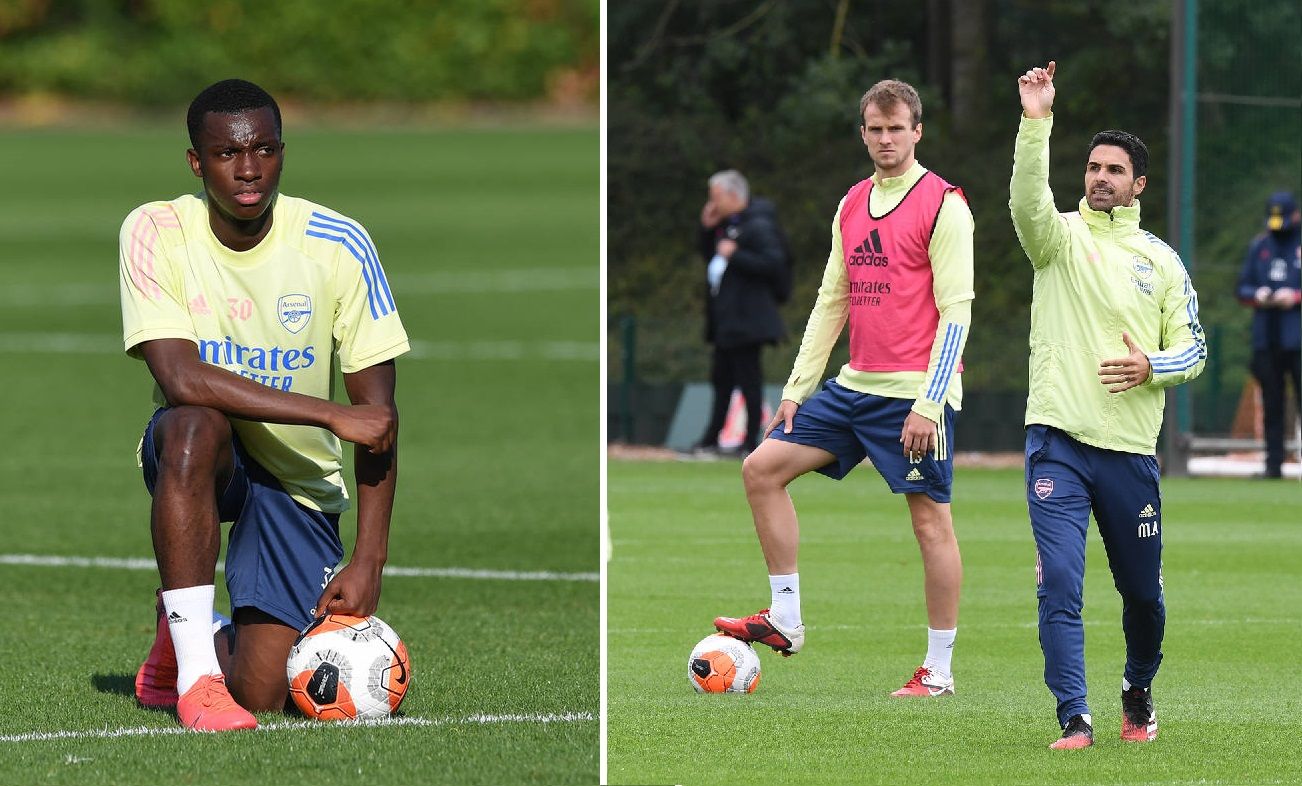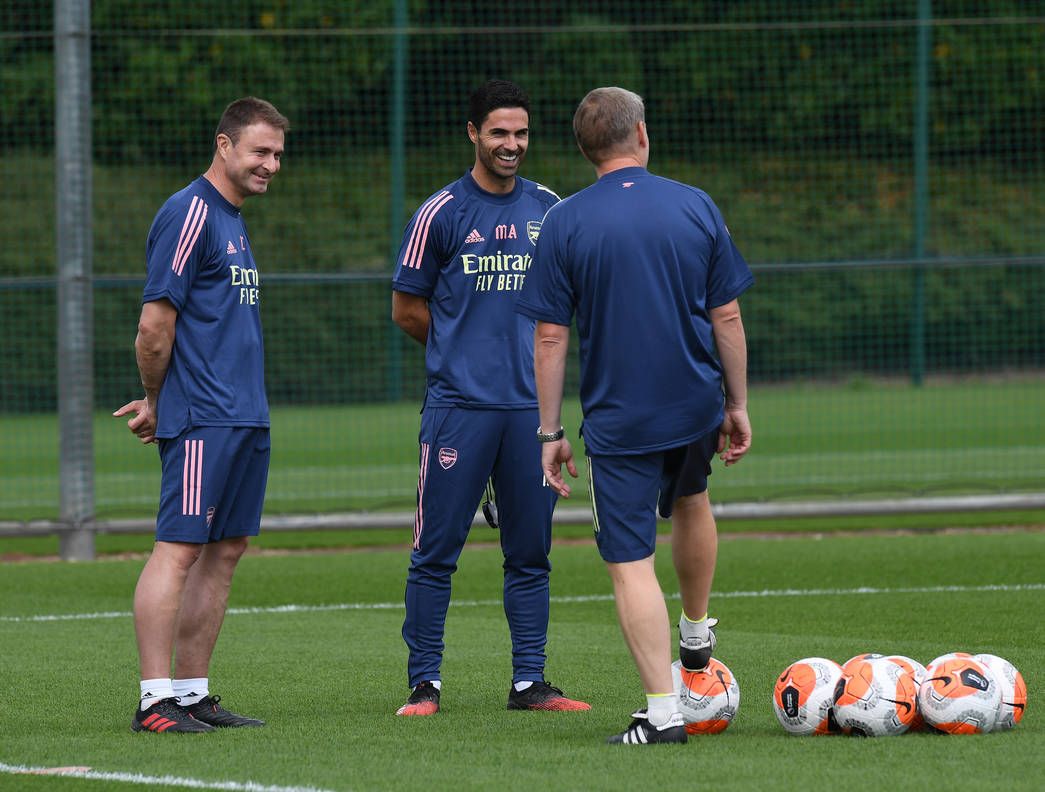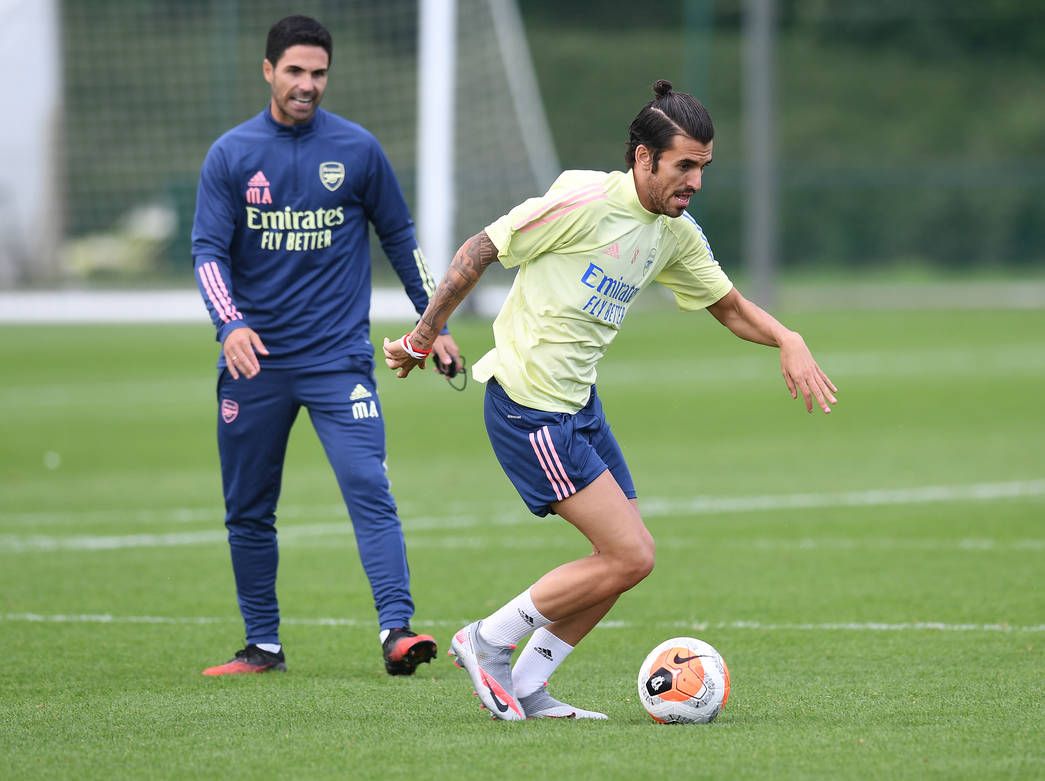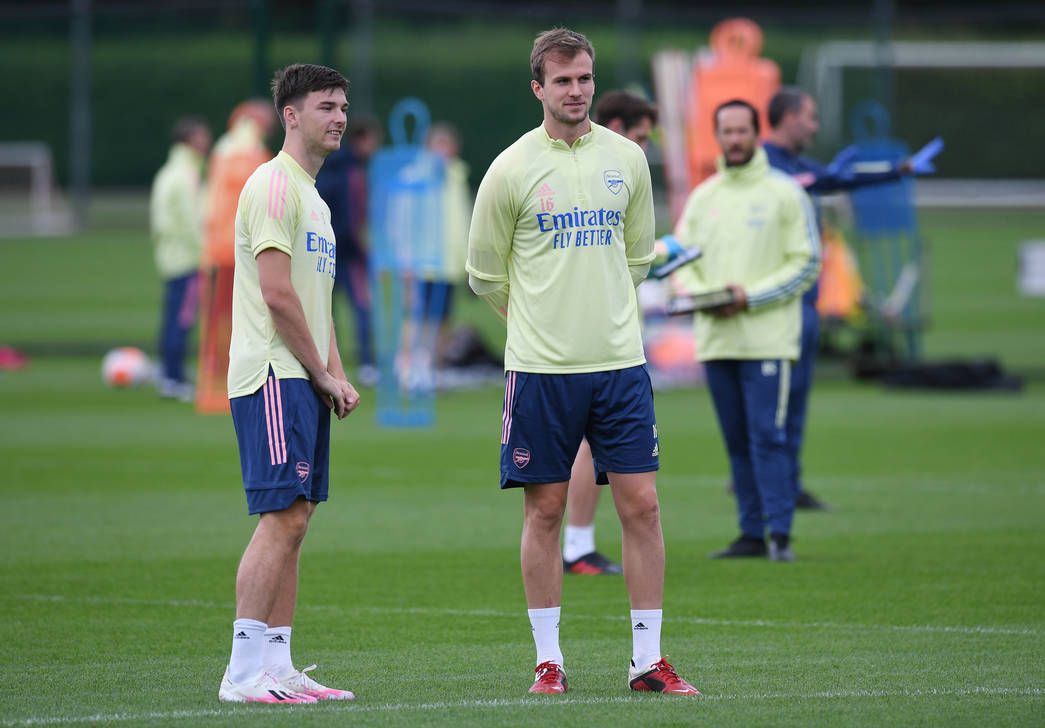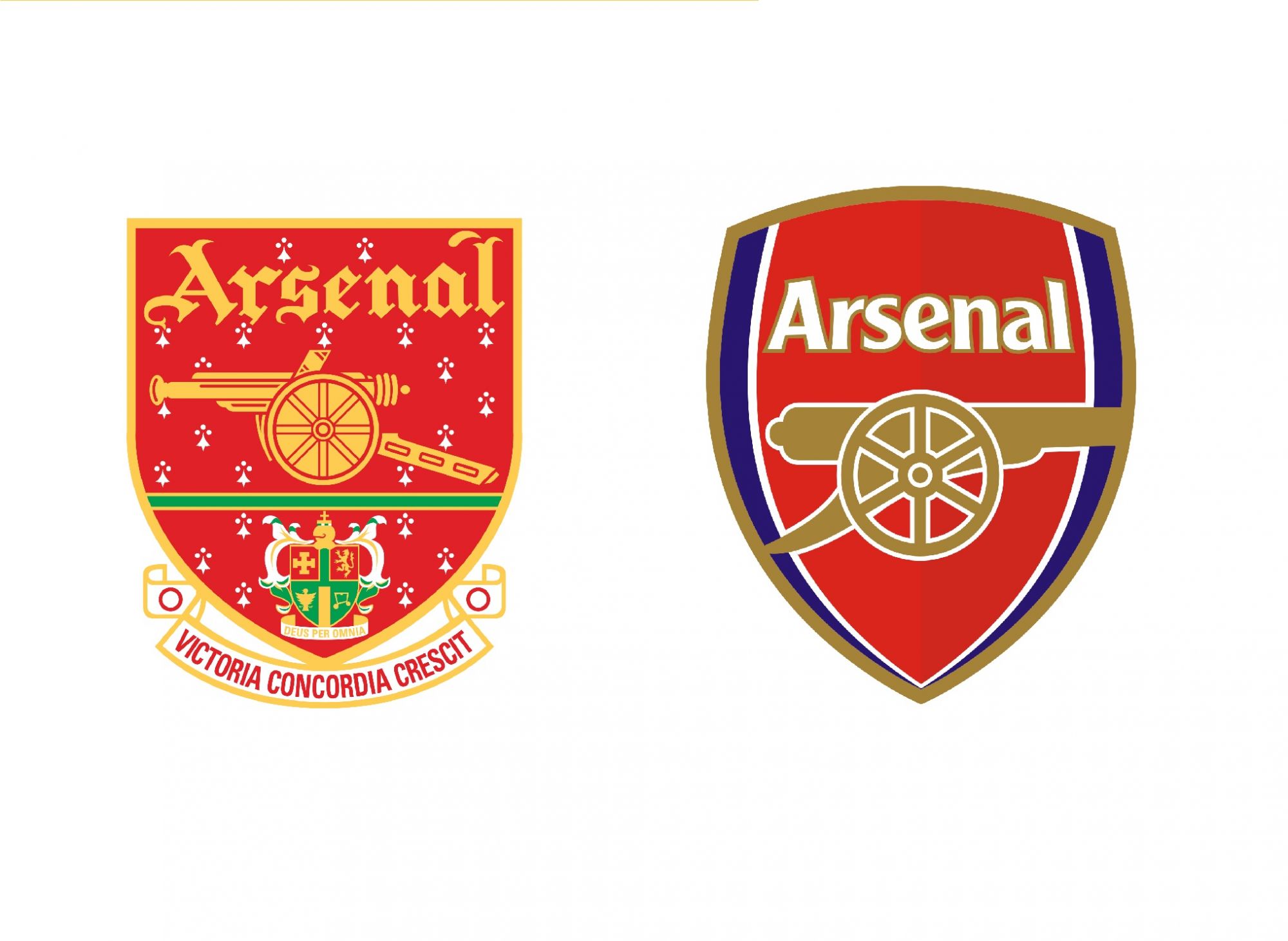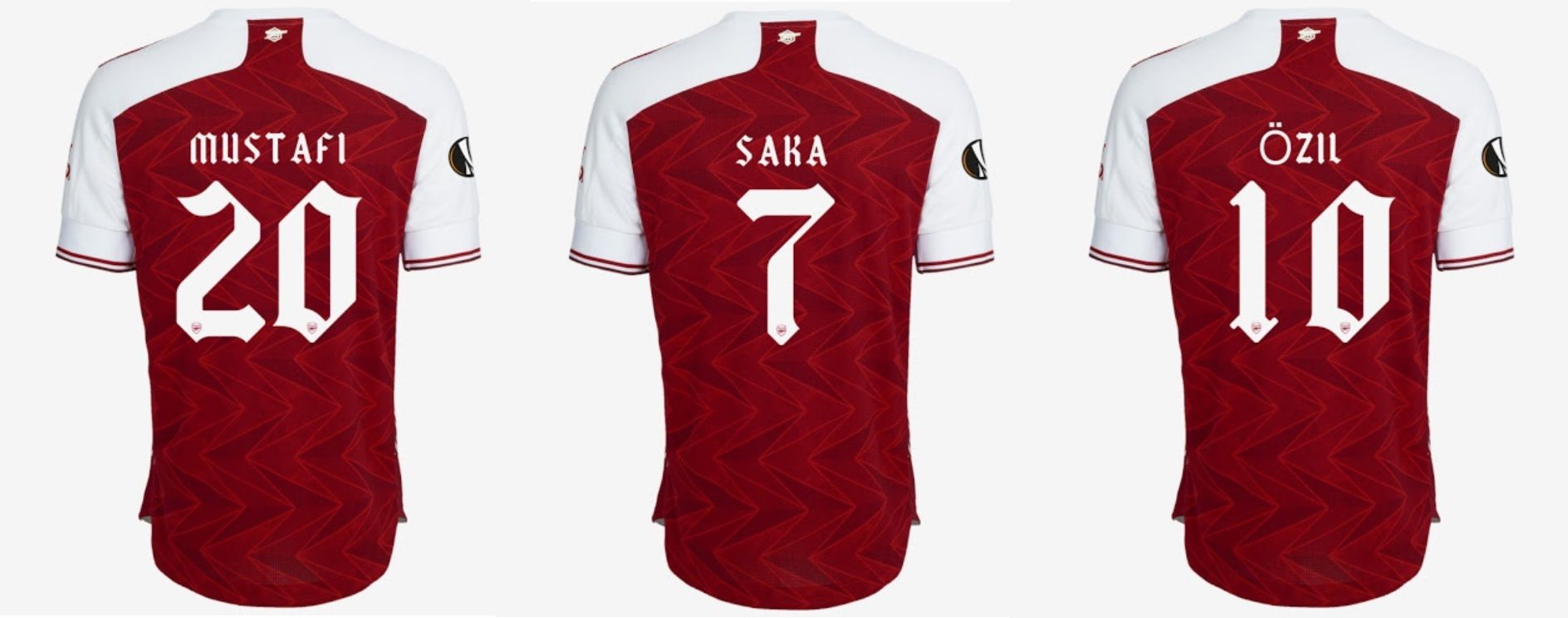
The new Arsenal font inspired by the 1949 logo It will only be used in the Europa League and the FA Cup
In conjunction with the presentation of the new adidas home kit for the 2020/2021 season, Arsenal has also unveiled the new custom font that will be used during the matches of the Europa League and the FA Cup.
It is a font with a completely new design, inspired by the lettering of the old Gunners' coat of arms, used from 1949 to 2002.
In reality, the design, produced by adidas creatives, can be seen at the Arsenal Football Club Training Ground from last June 17, the day in which Londoners began training with the new training kit to which the customizations had been applied (shirt number or initials of name and surname) that have not gone unnoticed.
Arsenal will however continue to use the official Premier League character during the next championship.